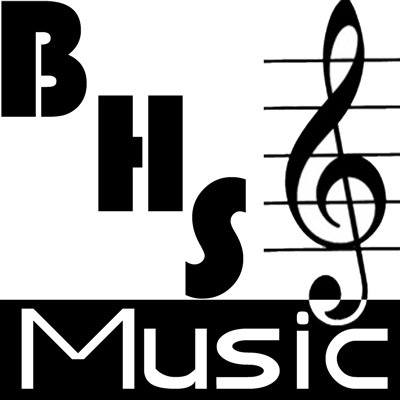
So, I just finished some murals for my school of instruments...
But, now that they are all hung up, we need one that says "BHS Music." I would like it to be in a 1970s style font, similar to this:
Or this:
Idealy, it would be diagonal down canvas (same size as the canvas's (sp??) above) with the "BHS" and then "Music" horizontal across the bottom.
I can take a computer generated graphic and project it onto the surface. Anyone?
those look like rip-offs from the classic font "Bauhaus". do you have that? Im sure thats what your use to seeing....especially in that era
I think you can get Bauhaus 93 (and also a similar font called Braggadocio) if you install MS Office 2004. I even think you'll get it with the test drive.
i typed it in illustrator and outlined the font for you so you dont need the font. you will be apple to manipulated it however you want. good luck.
you do have illustrator dont you? if not you can rasterize it in photoshop or place the file in a page layout program.
Here's what I have after playing a little (see attachment).
Suggestions, ideas??
Hows about this one?
ah don't really like that one.. however i do like the inverted one.. definately shows a good contrast compraed to the other ones and will definately stand out as a visual starting point
Well then what should change?
I like it actually... I especially love how the treble clef goes into the top part of "Music."
I do think it would look more visually pleasing if the "Music" though, was in the same style font as the "BHS."